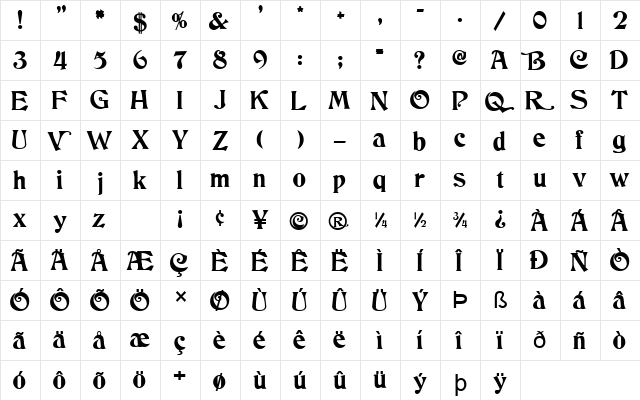
Invitation Normal Font Preview
Invitation Normal
Design Context for Invitation Typeface
Invitation is a composed and adaptable typeface that performs quietly and consistently across a wide range of design contexts.